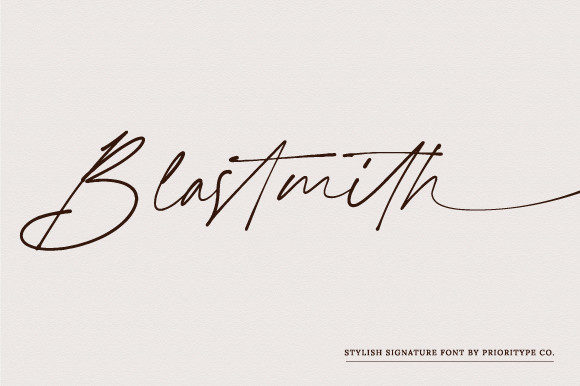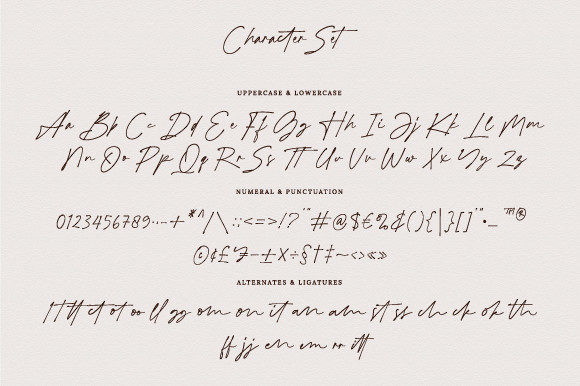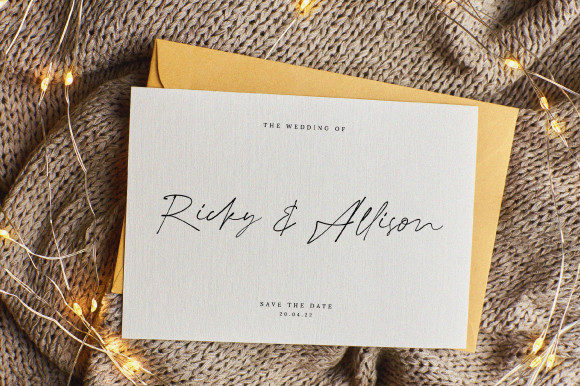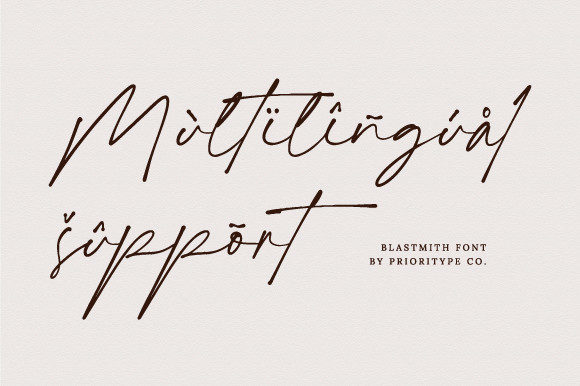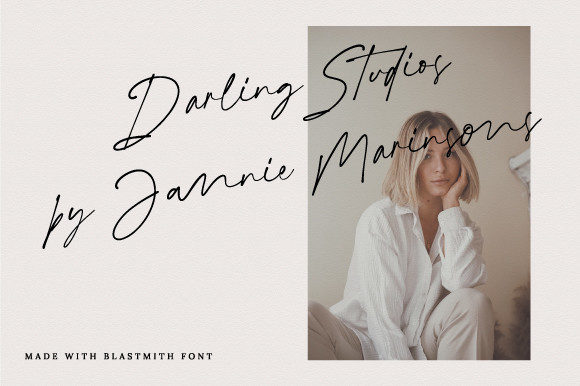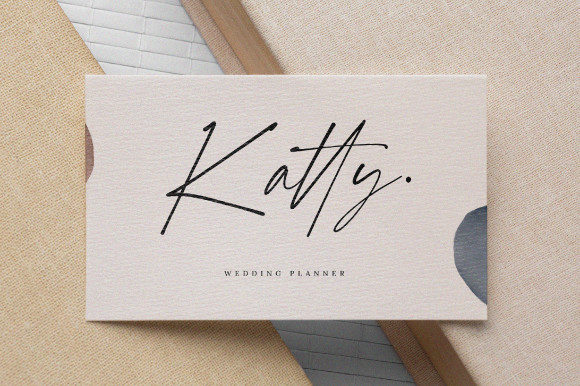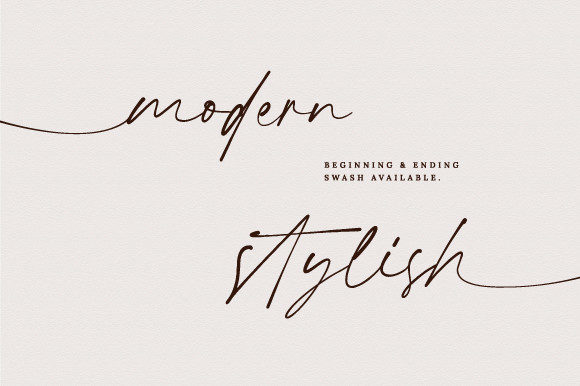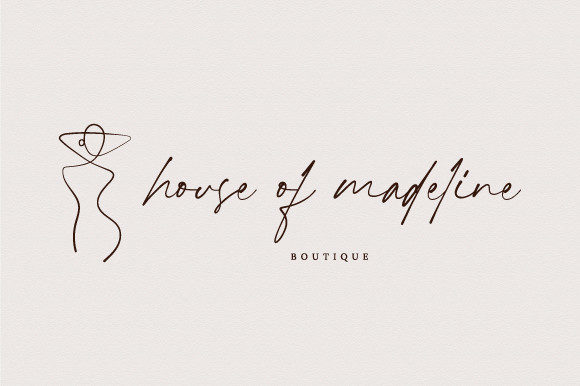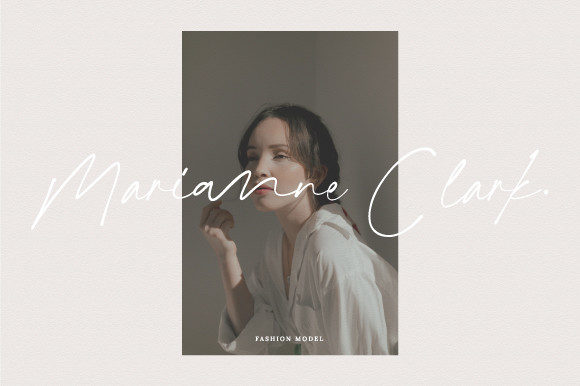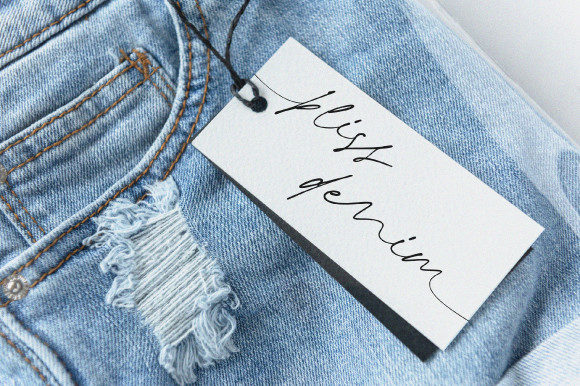
Blastmith Font
About Blastmith Font
Blastmith is a script font that embodies modernity and style. Its signature-like characteristics make it a perfect choice for a variety of applications. Whether it’s for invitation design, branding, quotes, business cards, or social media posts, Blastmith is sure to impress.
The charm of Blastmith lies in its ability to add a personal and professional feel to any design. Its stylish script style is reminiscent of handwritten signatures, giving your designs a touch of sophistication and authenticity. The presence of several ligatures and swash characters adds a natural impression to this font, making it more engaging and appealing to the audience.
Moreover, Blastmith is PUA encoded, which means you can easily access all of its amazing glyphs and swashes. This feature allows you to explore a wide range of design possibilities and add a unique touch to your projects. Whether you’re looking to create elegant headlines, captivating logos, or expressive text, Blastmith’s glyphs and swashes can help you achieve your design goals.
In conclusion, Blastmith is more than just a font. It’s a design tool that can add a touch of modernity and style to your designs. Its unique script style and versatility make it a valuable asset for any designer. So, why wait? Incorporate Blastmith into your design today and witness the transformation. Experience the difference that a truly modern and stylish font can make. Experience Blastmith.
With Blastmith, you’re not just choosing a font. You’re choosing a font that will make your design stand out, a font that will add character to your text, and a font that will leave a lasting impression on your audience. Choose Blastmith, and let your design speak for itself.
So, if you’re looking for a font that’s modern, stylish, and has aesthetic value, look no further than Blastmith. It’s the perfect font for any design project, and it’s sure to make your design stand out. Try Blastmith today, and see the difference it can make in your design.